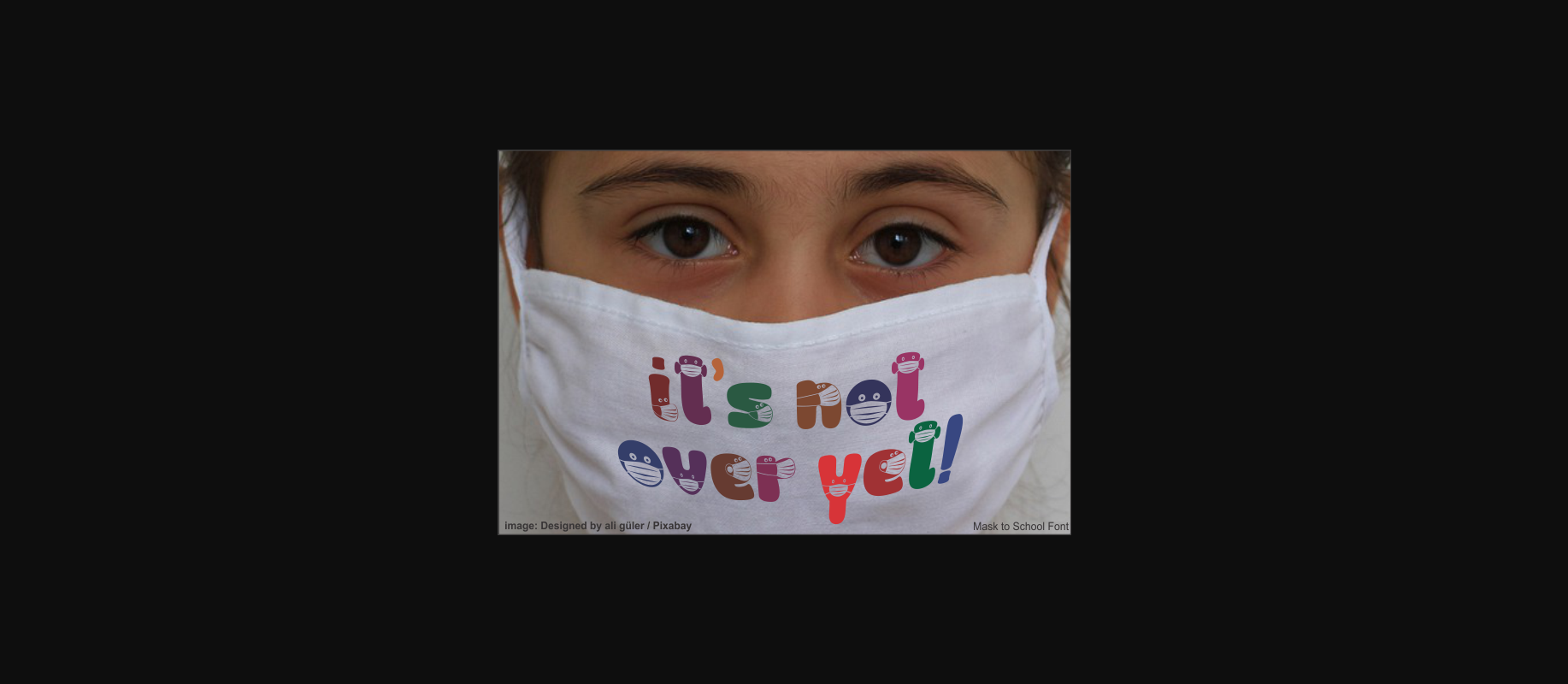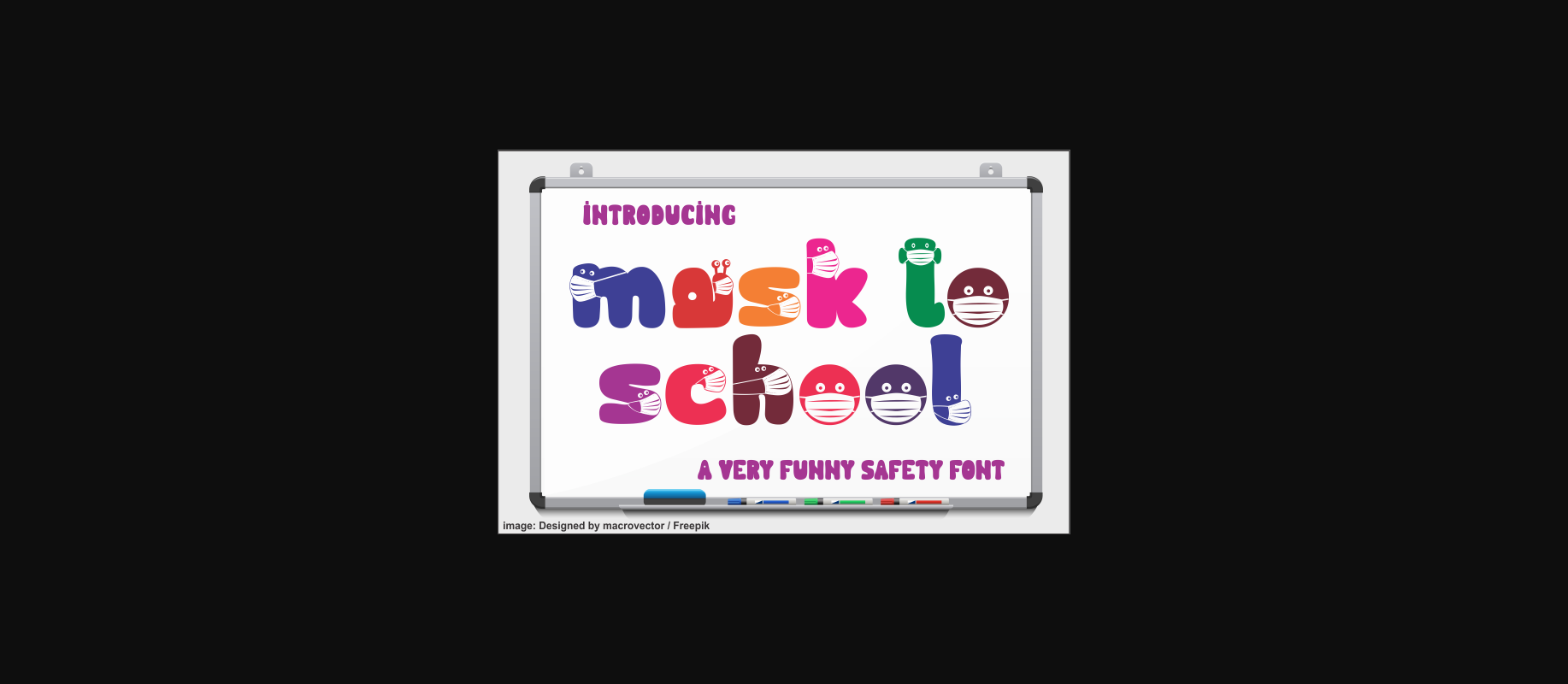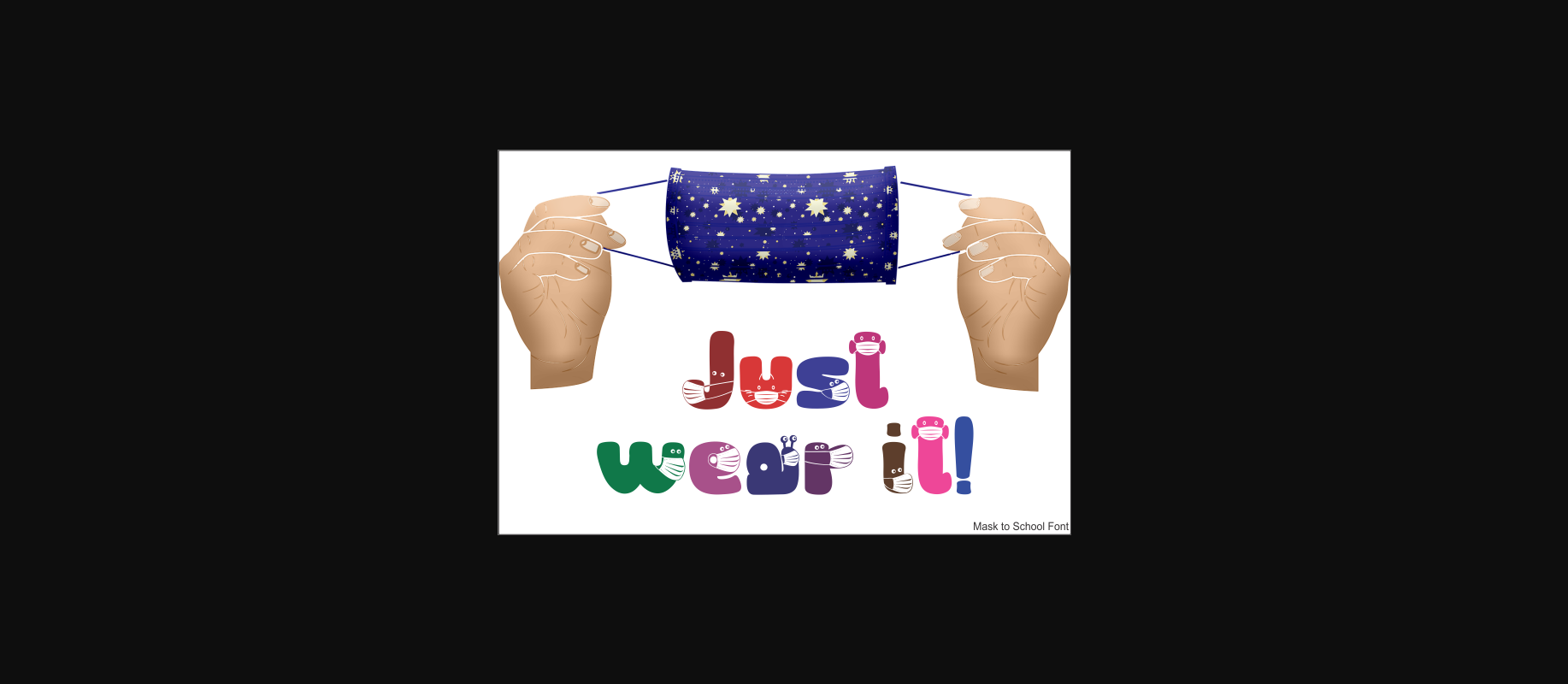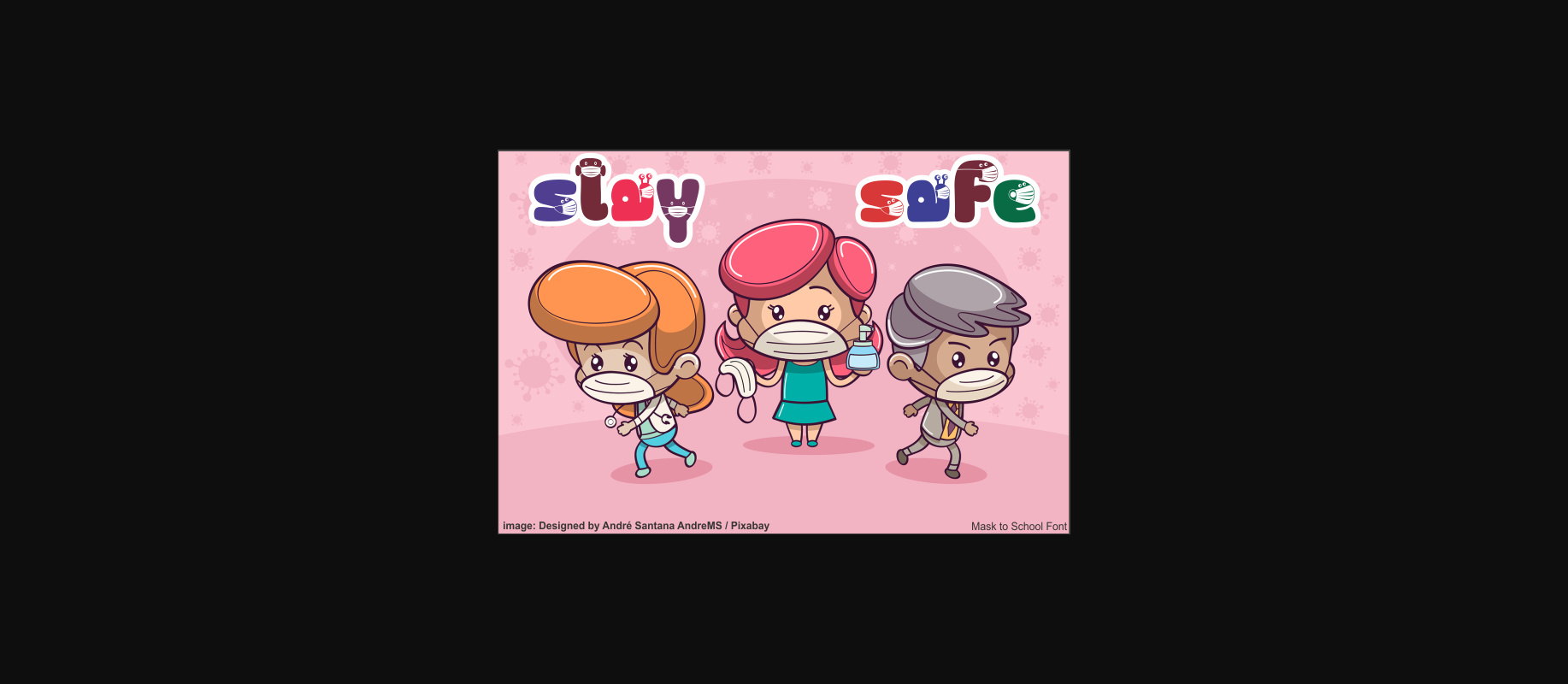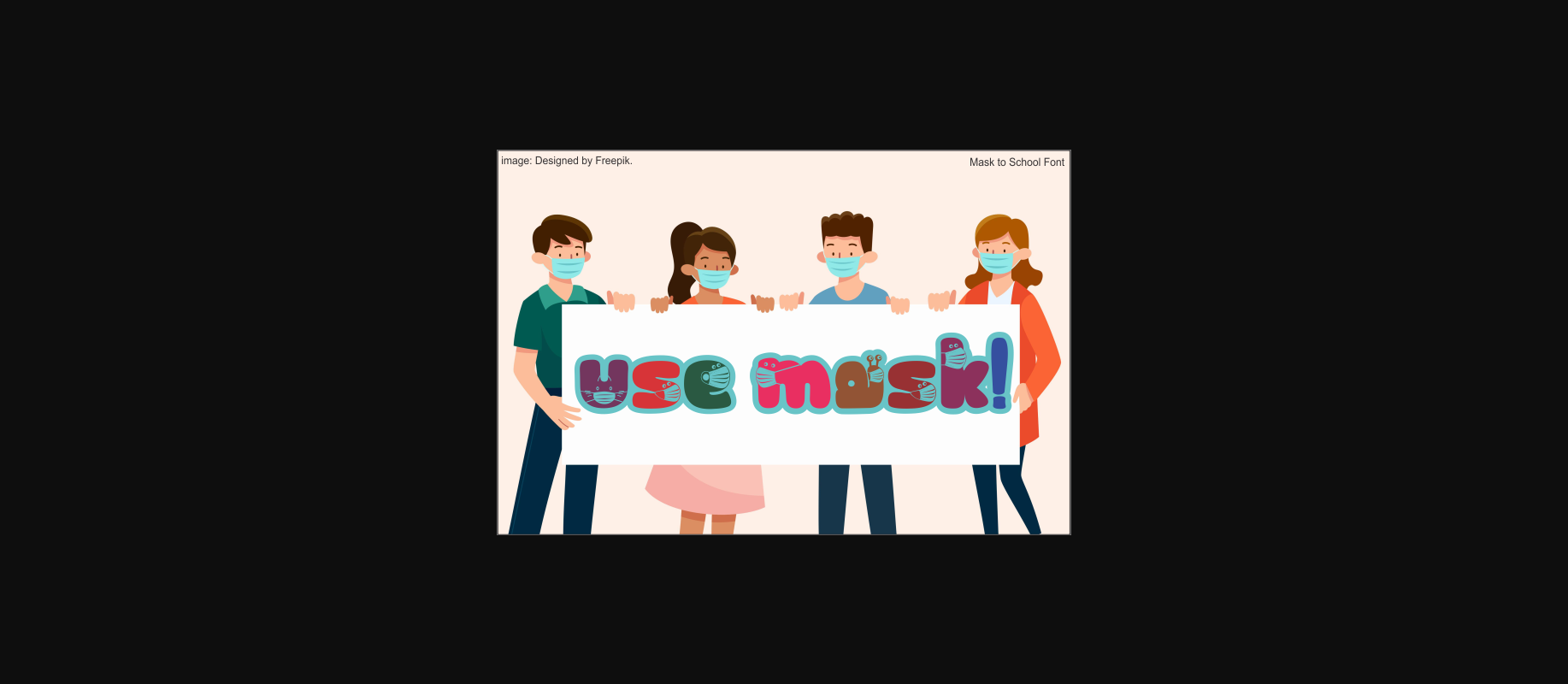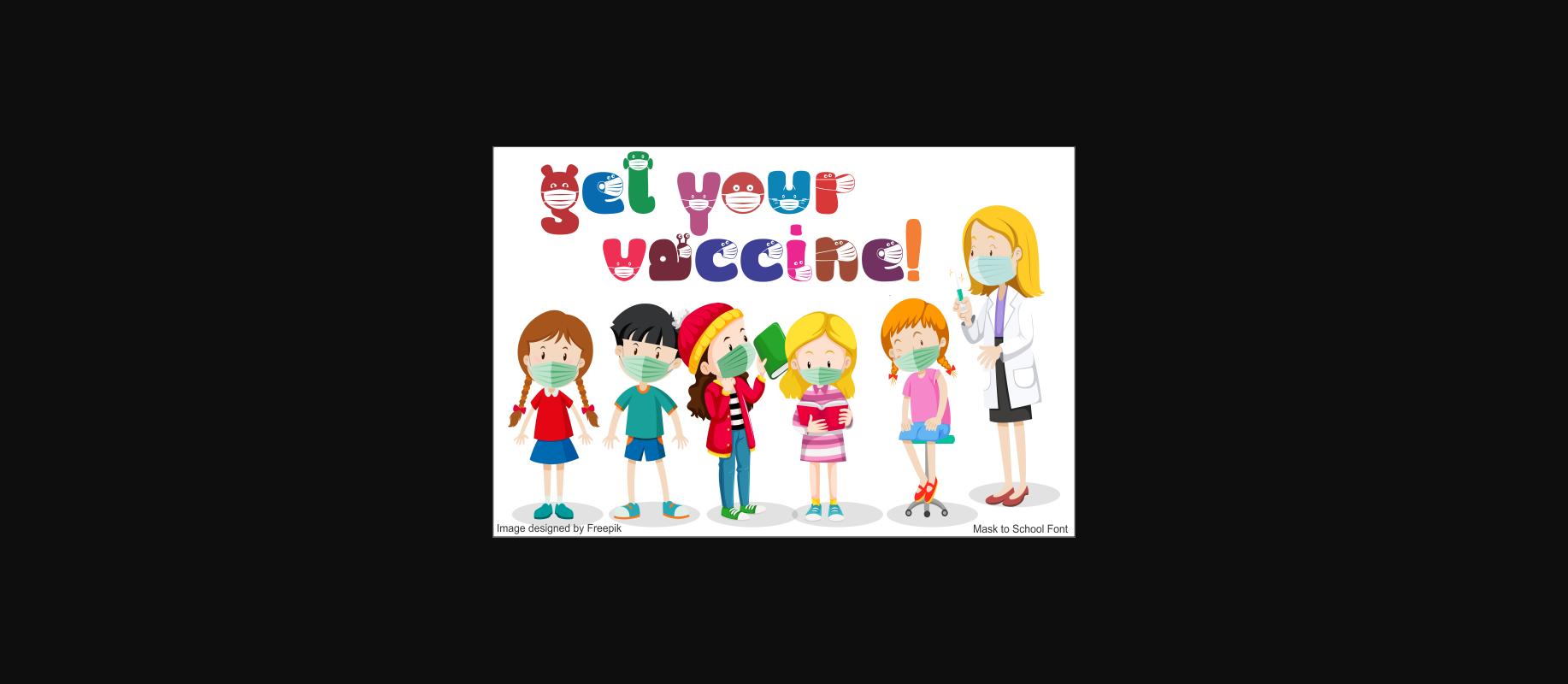
Mask to School Font
About Mask to School Font
Mask to School is a cool, fun and friendly decorative font. It embodies playfulness and authenticity and is the perfect choice for any children activity or school project.